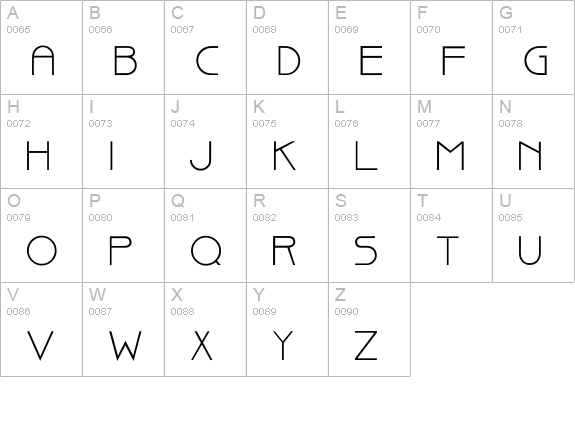
Billuy Font Details
Billuy font is a modern and stylish typeface designed to add a touch of elegance to your projects. With its clean lines and unique character shapes, Billuy is perfect for a wide range of applications, from branding to editorial design. This versatile font exudes sophistication and professionalism, making it an excellent choice for any design project. What sets Billuy font apart is not only its aesthetic appeal but also the fact that it is available for free download at FontsMarket.com. This means you can easily access this high-quality font without any cost, making it a valuable addition to your design toolkit. Whether you're working on a website, a poster, a logo, or any other creative project, Billuy font will help you achieve a polished and professional look effortlessly. Download Billuy font for free today and elevate your designs with its sleek and contemporary style.